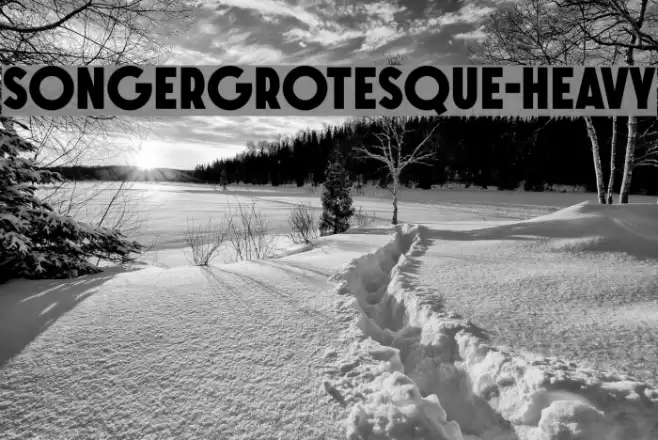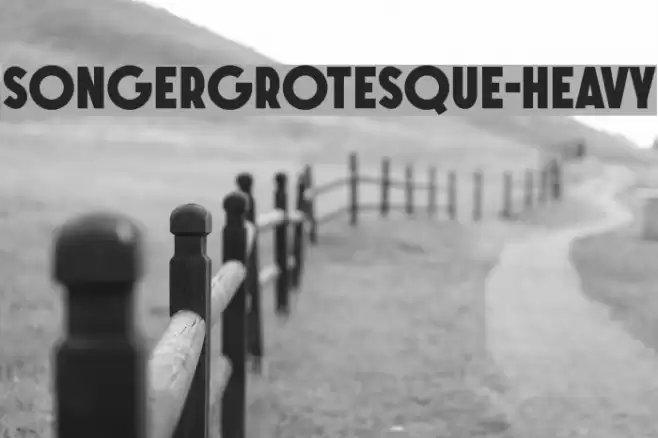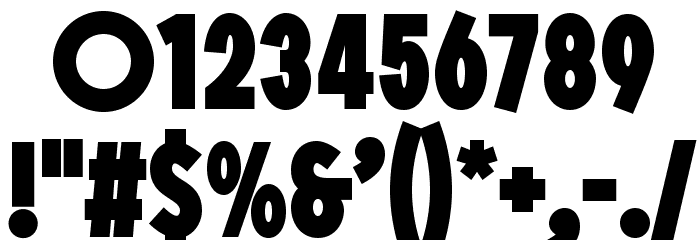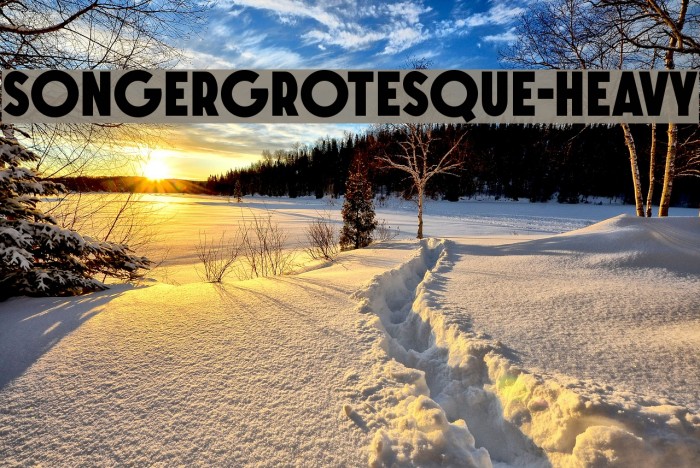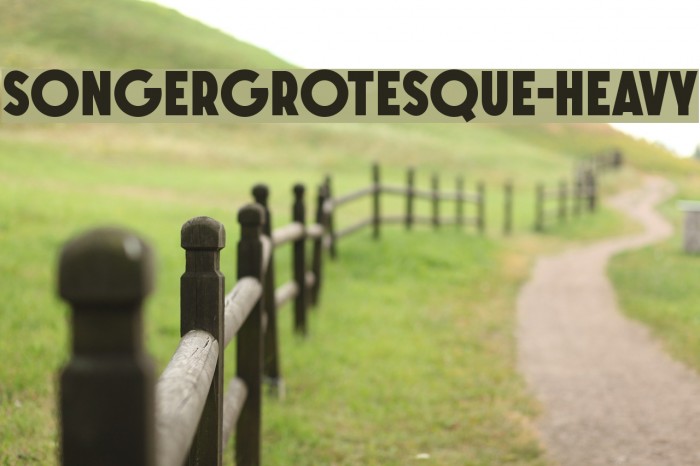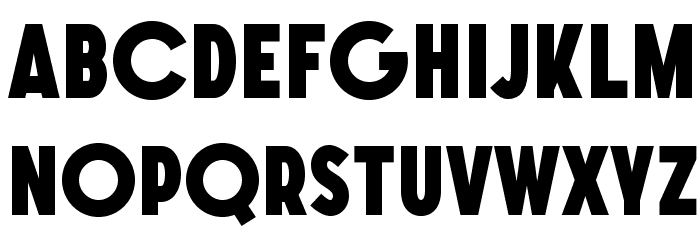
SONGERGrotesque-Heavy Font
SONGERGrotesque-Heavy Description
This font is characterized by its bold and striking appearance, featuring thick, uniform strokes that convey a sense of strength and modernity. The characters are sans-serif, with clean lines and a geometric structure that enhances readability and impact. The uppercase letters are particularly prominent, making them ideal for attention-grabbing headlines or titles. The numerals and special characters maintain the same boldness, ensuring consistency across different types of content. The overall design is straightforward yet powerful, suitable for a variety of applications where a strong visual presence is desired.
A bold, modern sans-serif font with thick, uniform strokes from Uncategorized fonts.
- Proposed Projects: Ideal for branding, advertising, posters, and any project requiring a strong visual impact.